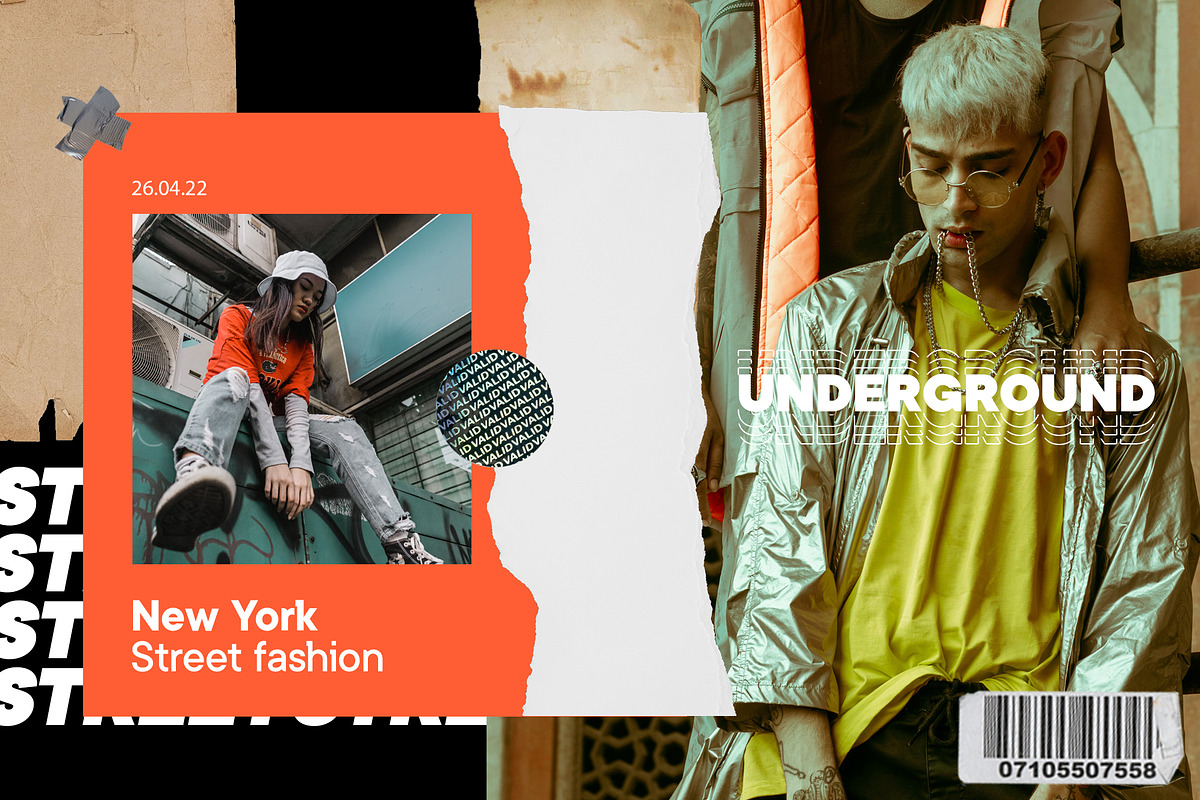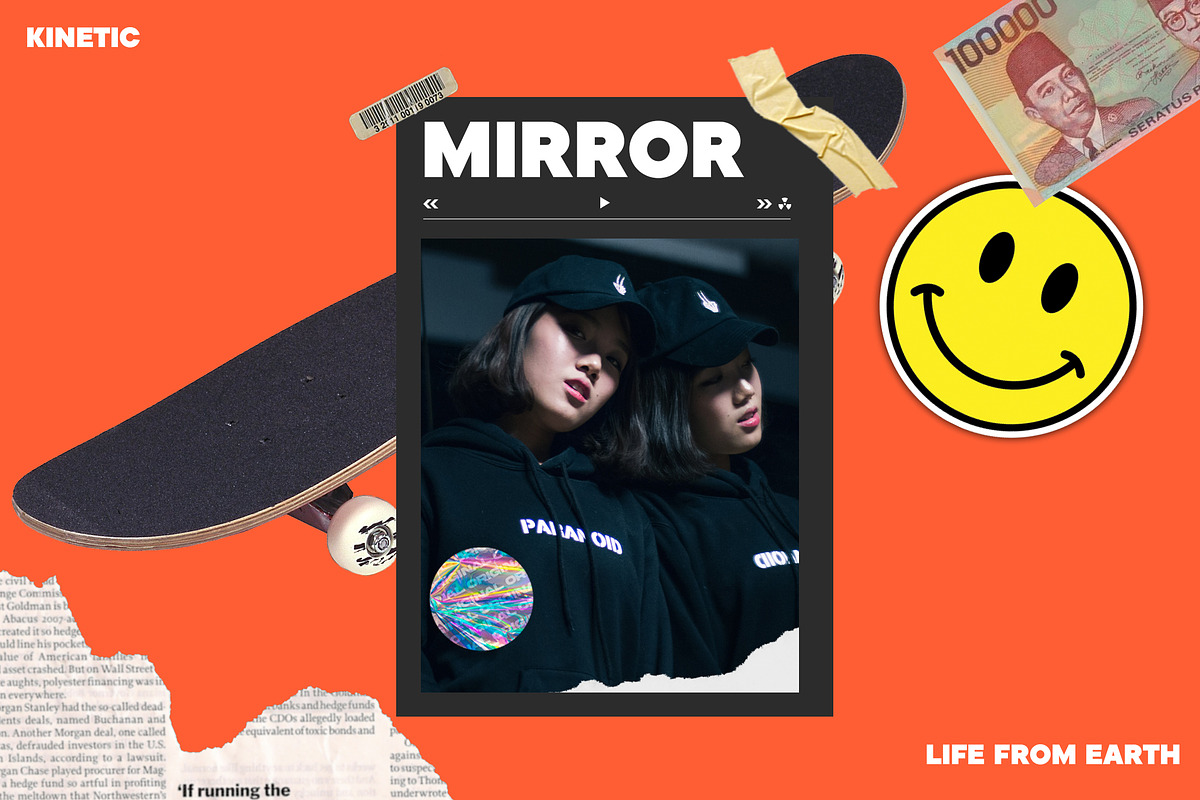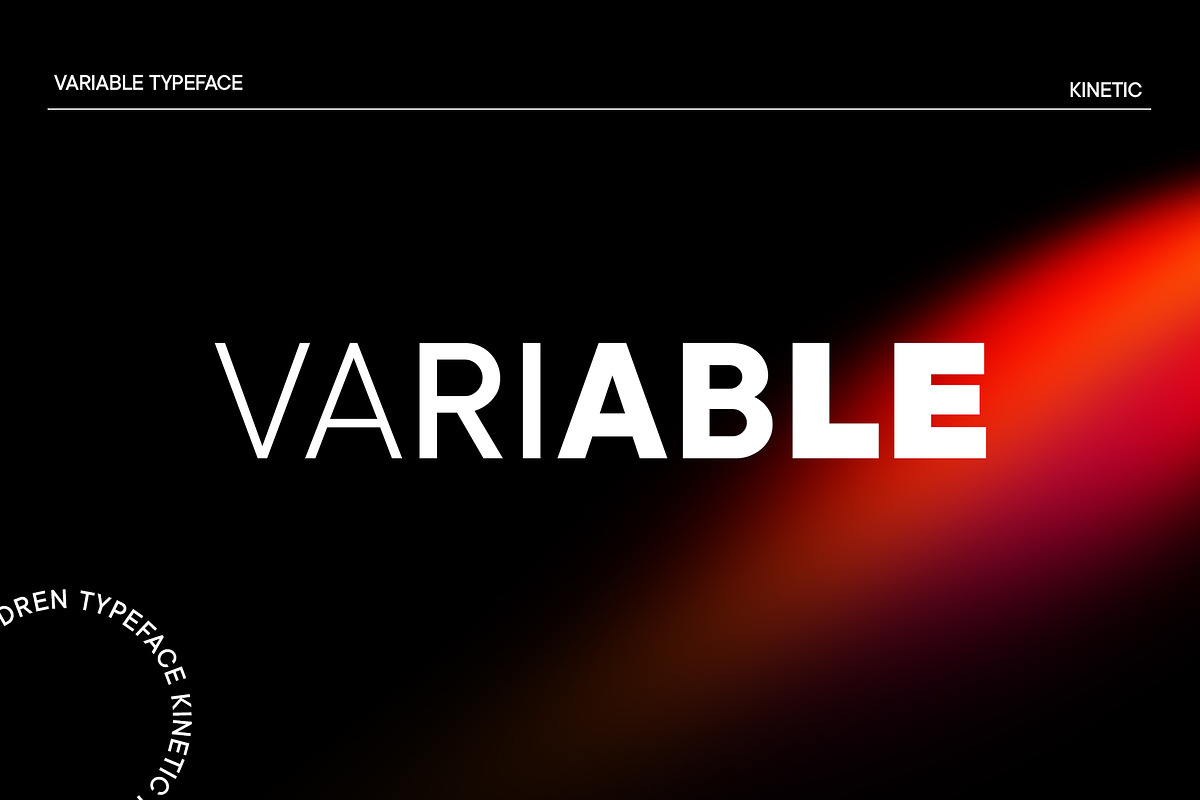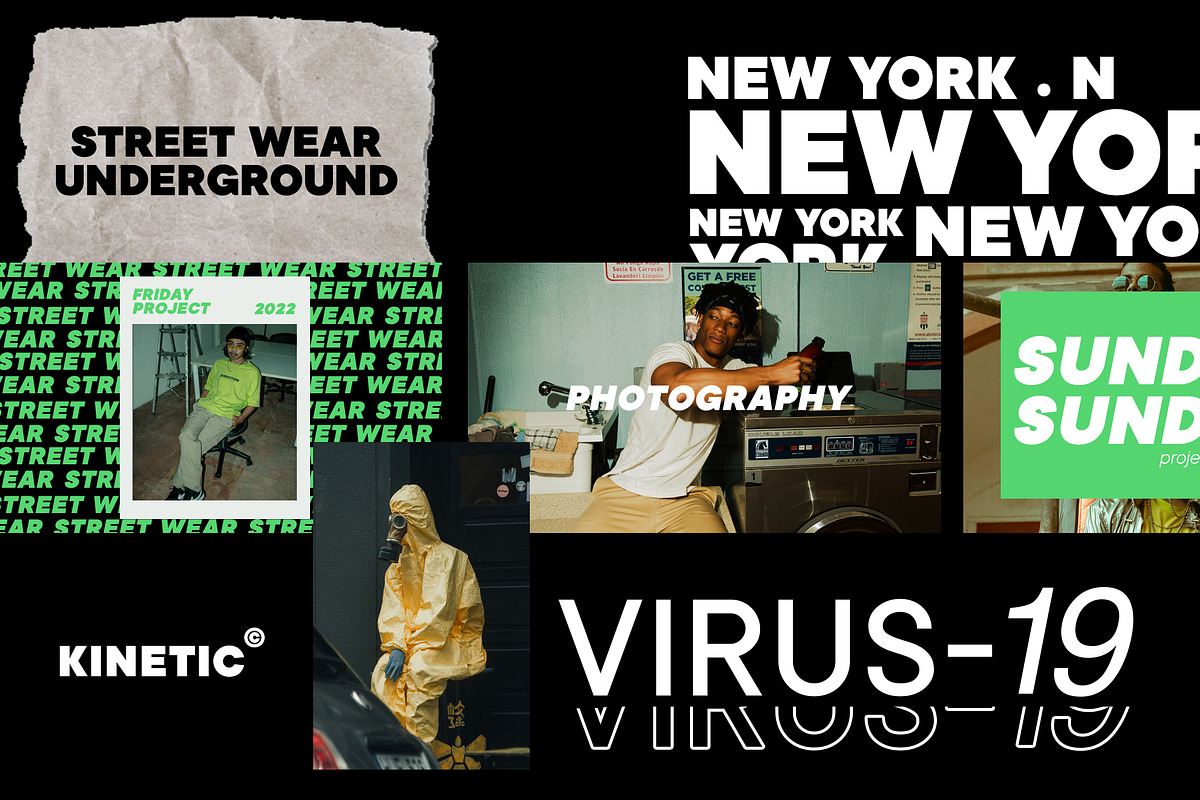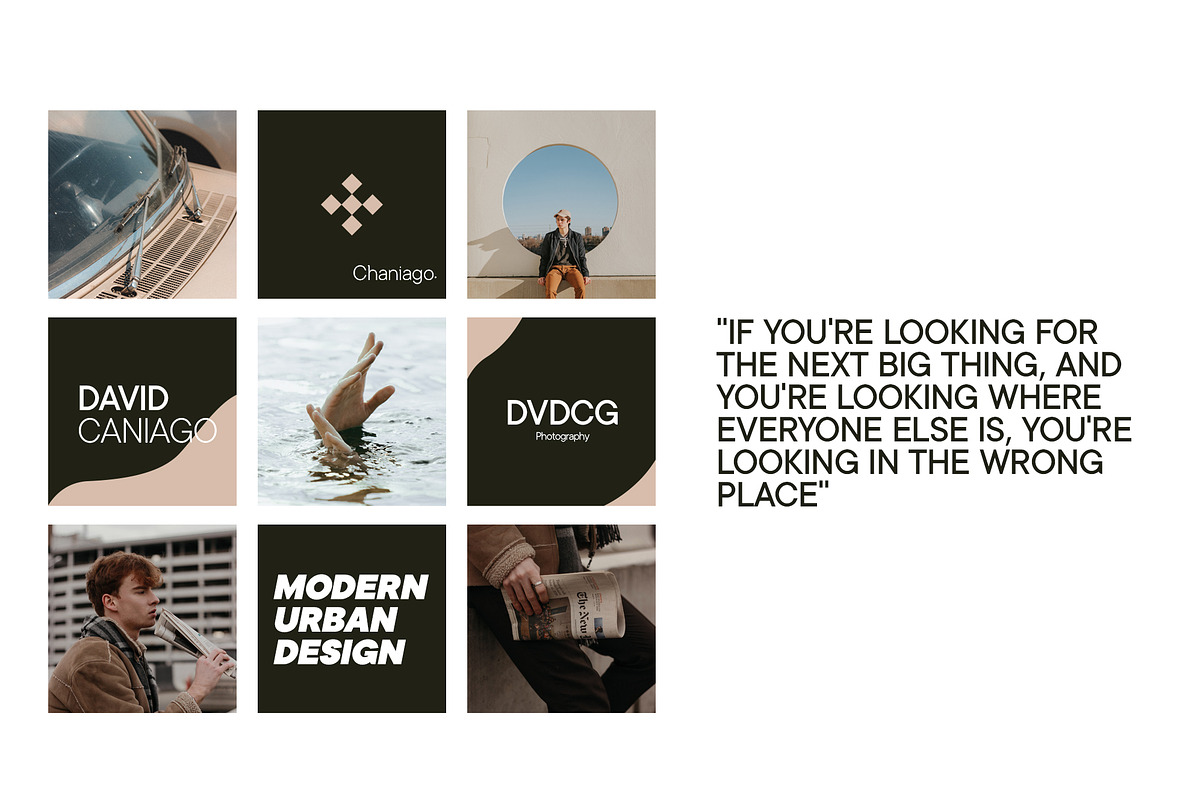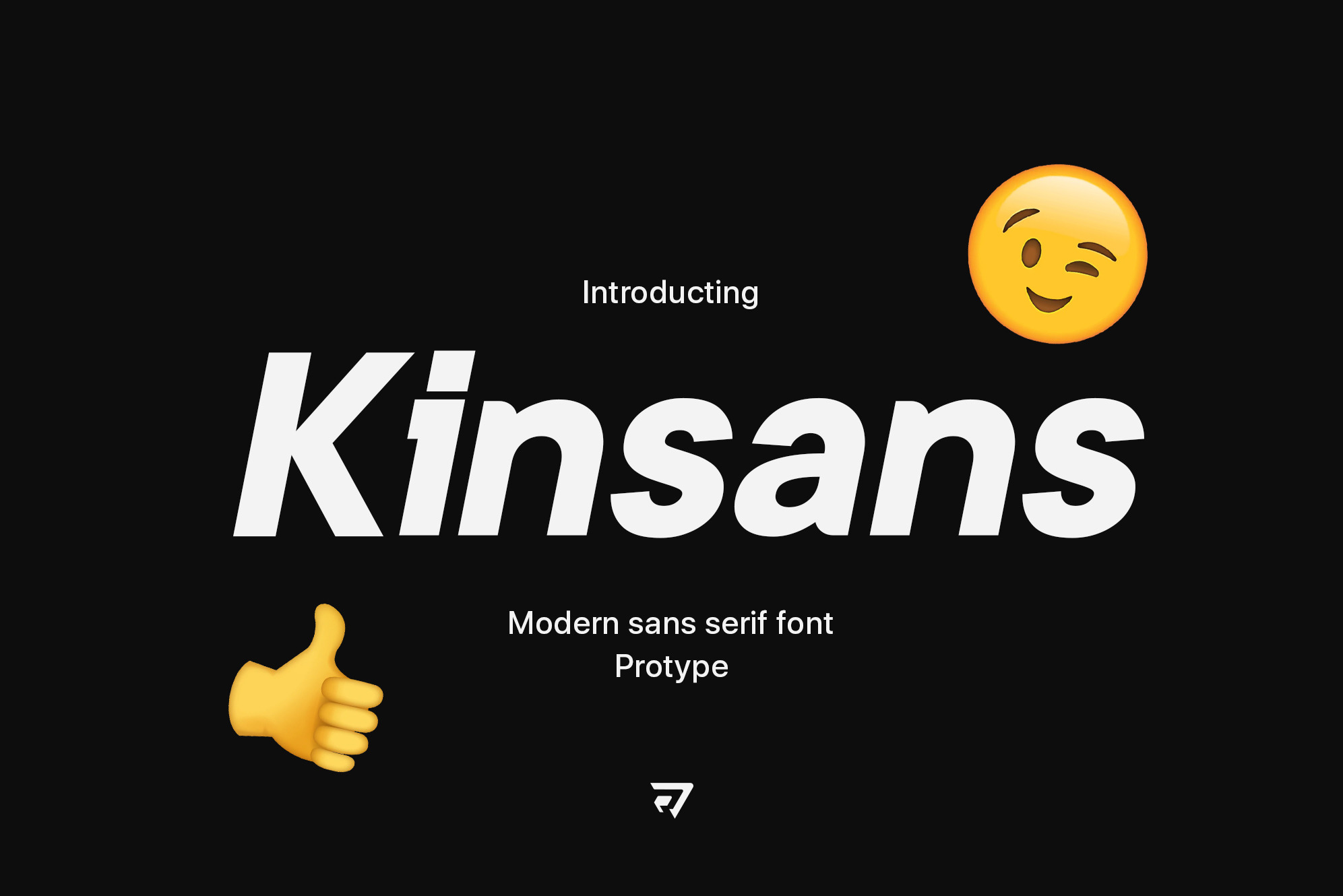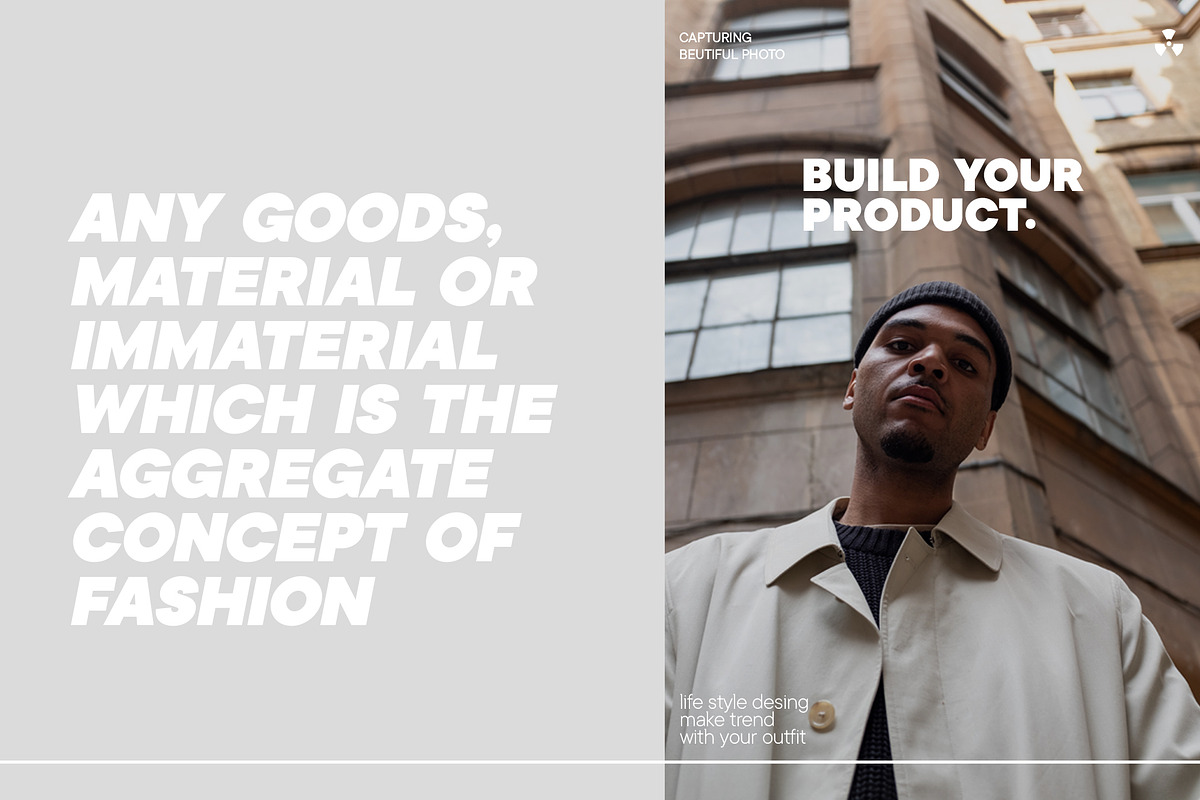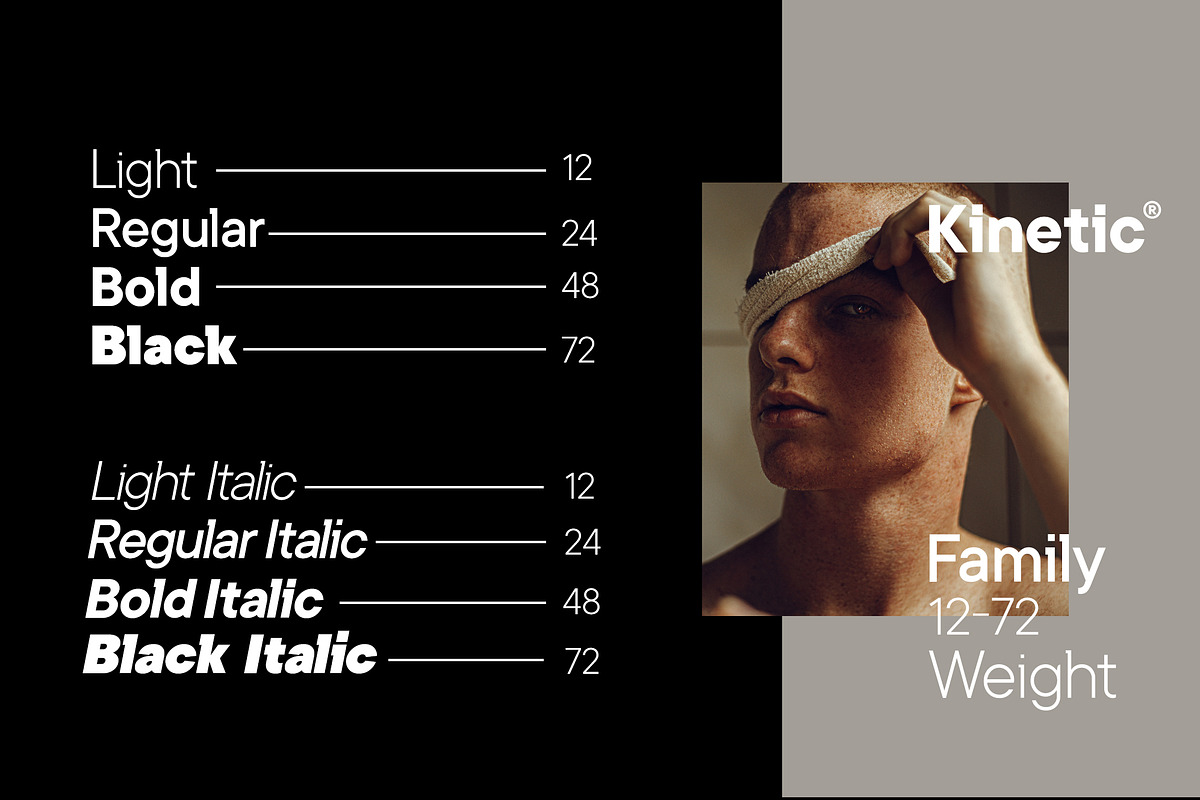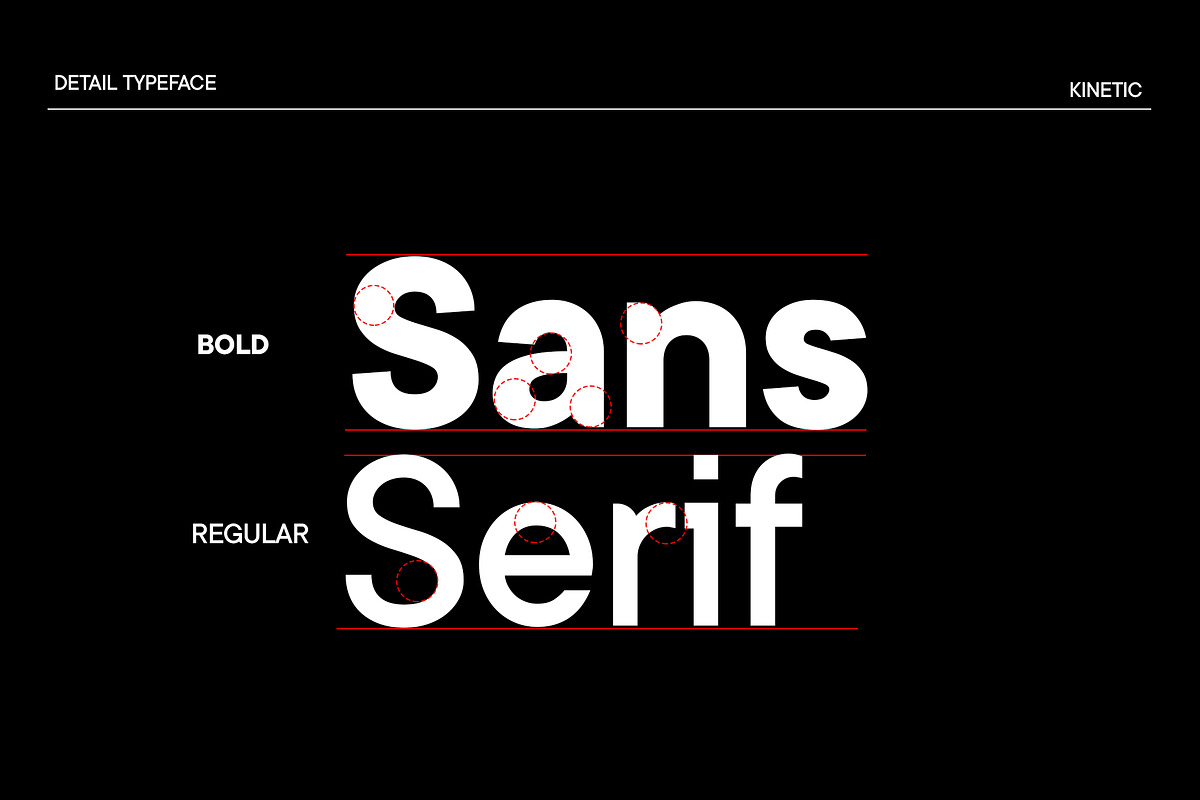
Kinsans - Sans Serif Font
Kinsans is a modern and cool sans-serif font. It can easily be matched to an incredibly large set of projects, so add it to your creative ideas and notice how it makes them stand out!